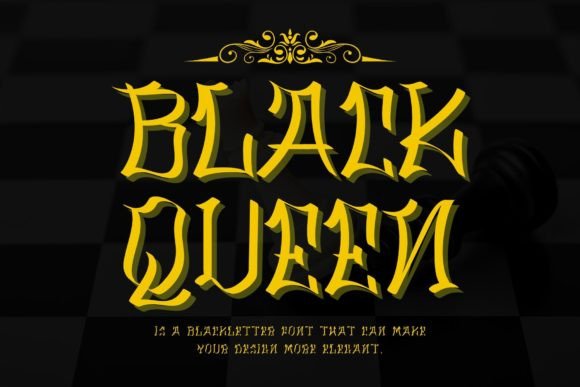
The Enchanting Black Queen Font: A Designer’s New Best Friend
I still remember the design project that led me to discover the Black Queen font. I was working on a logo for a luxury brand, and I needed a font that would convey elegance, sophistication, and a touch of mystery. After hours of scouring font libraries and trying out different options, I stumbled upon Black Queen – an enchanting blackletter font that stole my heart. Its mesmerising curves and striking strokes instantly elevated my design, infusing it with an irresistible aura of refinement.
- ✨ Elegant and sophisticated design that’s perfect for luxury brands
- ✅ Highly versatile and adaptable to various design projects, from logos to headings
- 🔥 Striking strokes and mesmerising curves that add a touch of drama to any design
A Few Quirks to Keep in Mind
While Black Queen is an exceptional font, there are a few things to be aware of:
- ⚠️ Some characters may appear a bit condensed, so be mindful of spacing and kerning
- 🤔 Limited availability of certain OpenType features in certain software
Exploring OpenType Features, Glyphs, and Stylistic Alternates
One of the standout features of Black Queen is its range of OpenType features, glyphs, and stylistic alternates. These allow you to:
- Swap out characters for alternate glyphs
- Access stylistic sets for varying levels of formality
- Adjust the font’s ligatures and ornaments
Experimenting with these features can help you unlock the full potential of Black Queen and create truly unique designs.
The Story Behind Black Queen: A Designer Inspiration
According to the font’s creators, Black Queen was inspired by the classic blackletter fonts of the Middle Ages. The designers wanted to create a font that would evoke the mystery and romance of this bygone era, while still feeling modern and sophisticated. The result is a font that’s both timeless and cutting-edge.
Q: What type of projects is Black Queen best suited for?
A: Black Queen is ideal for luxury brands, high-end products, and creative projects that require a touch of elegance and sophistication.
Q: Can I combine Black Queen with other fonts in a single design?
A: Absolutely! Black Queen pairs beautifully with a range of fonts, from modern sans-serifs to elegant scripts. Experiment with different combinations to find the perfect match for your project.